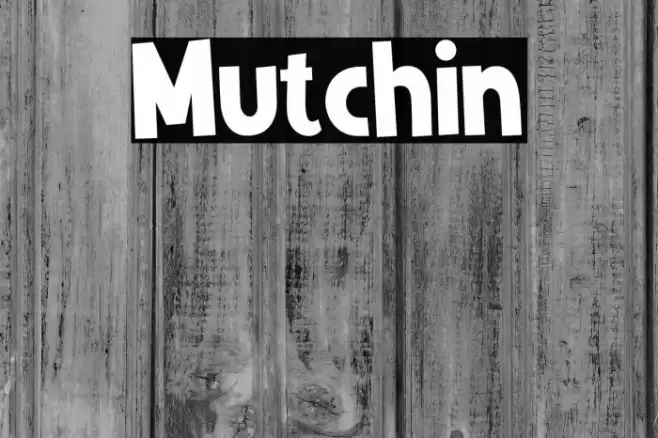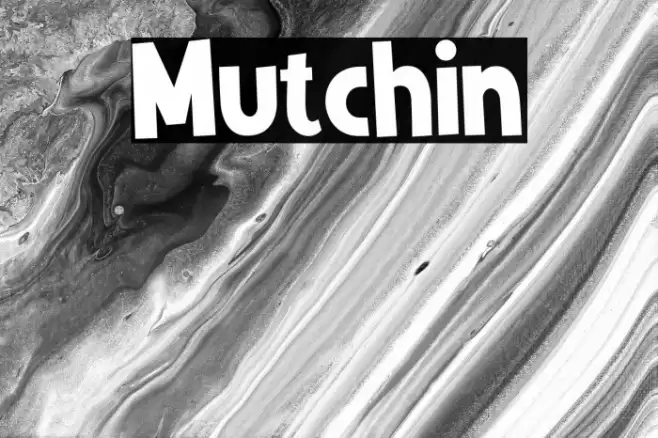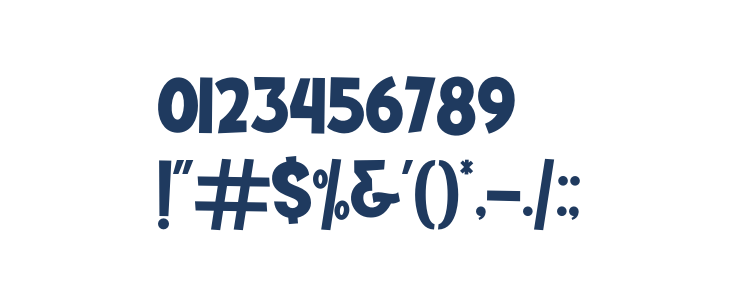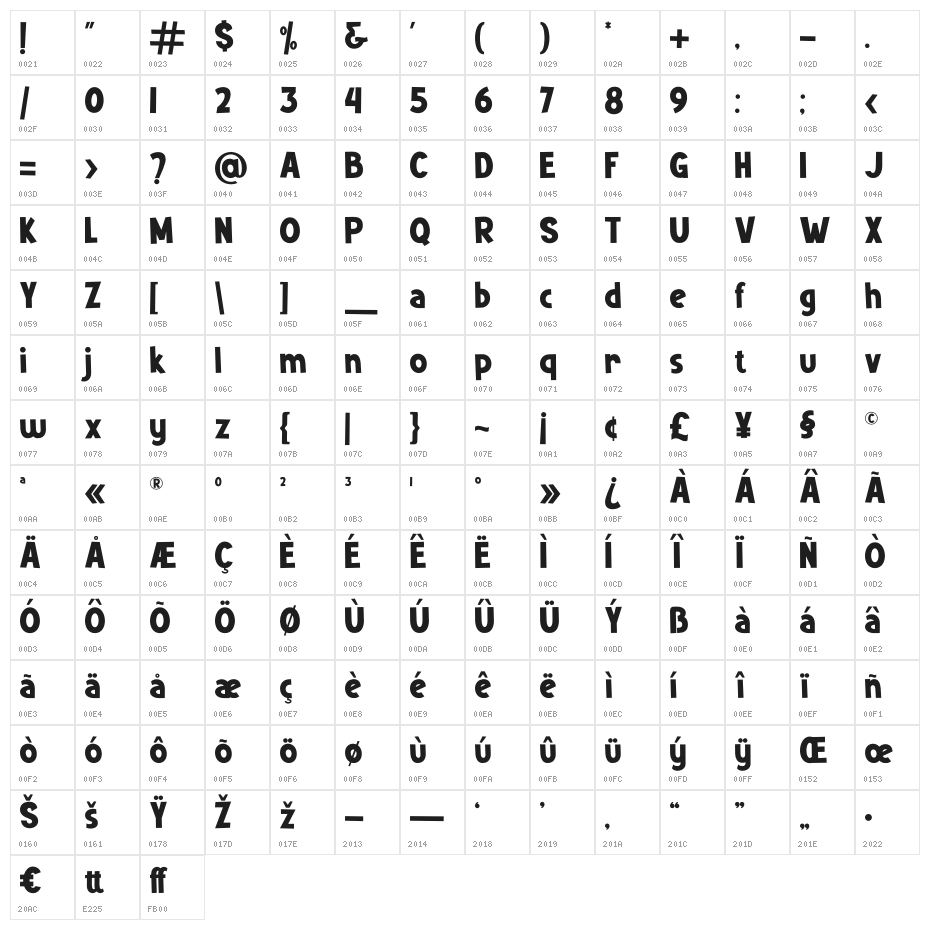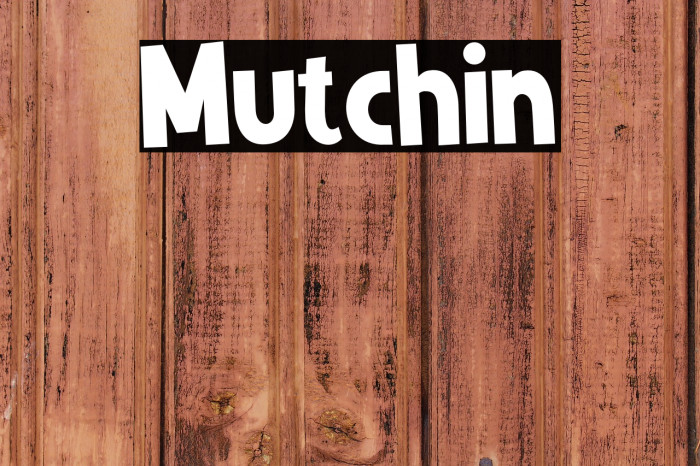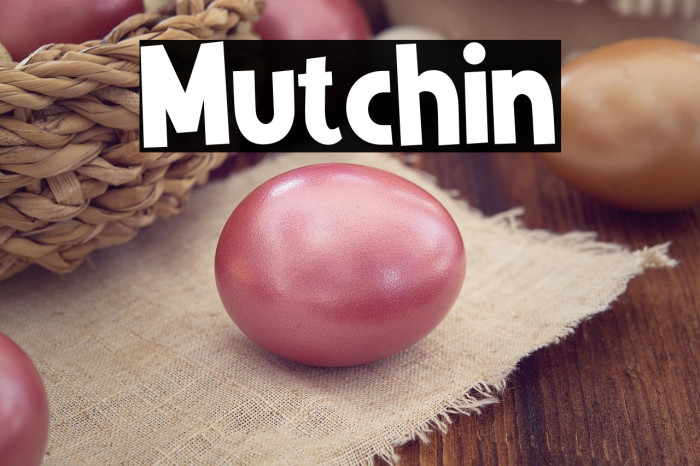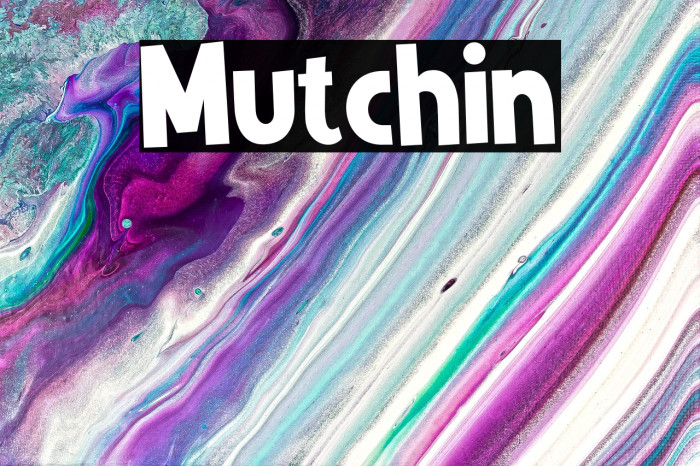
Mutchin Font
Mutchin Description
This font exhibits a bold and playful style, characterized by its thick, rounded strokes and slightly irregular shapes. The uppercase letters are robust and commanding, while the lowercase letters maintain a friendly and approachable appearance. The numerals are consistent with the overall style, featuring the same boldness and rounded edges. Special characters are designed to complement the alphanumeric set, ensuring a cohesive look. The font's playful nature makes it suitable for projects that require a fun and engaging aesthetic.
A bold, playful font with rounded strokes and a friendly appearance from Uncategorized fonts.
- Proposed Projects: Ideal for children's books, playful branding, posters, and social media graphics.
- Overall Style: Playful, Modern